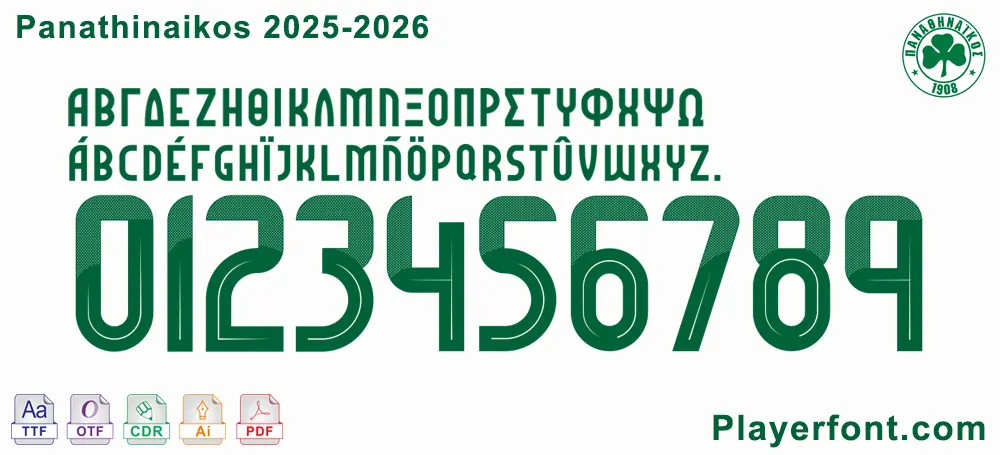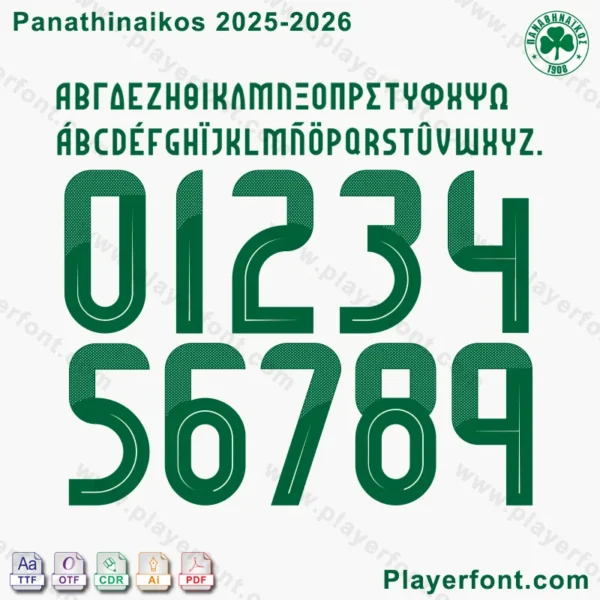
Panathinaikos 2025-2026 Font Download
Unleash your passion for the Greens with the official Panathinaikos 2025-2026 Font Download! This essential font package is designed for every dedicated fan and graphic designer eager to replicate the authentic typography of Panathinaikos for the upcoming season.
Panathinaikos 2025-2026 official font preview in green, showing Greek, Latin, and numbers.
A comprehensive display of the Panathinaikos 2025-2026 official font, including all characters and file types.
Whether you’re personalizing your Panathinaikos jersey, creating vibrant fan banners, or crafting digital content, this comprehensive font set provides all the necessary files to perfectly match the typeface used by the club for 2025-2026.
Panathinaikos 2025-2026 font set with numbers and alphabets on a textured background.Panathinaikos 2025-2026 Font Download